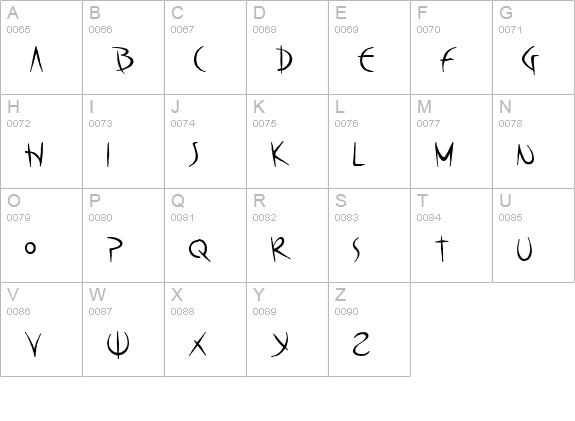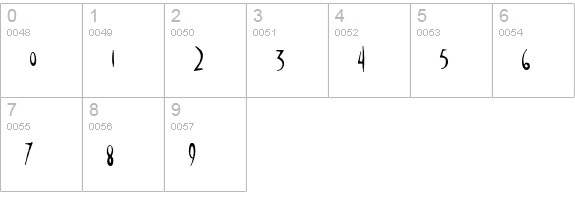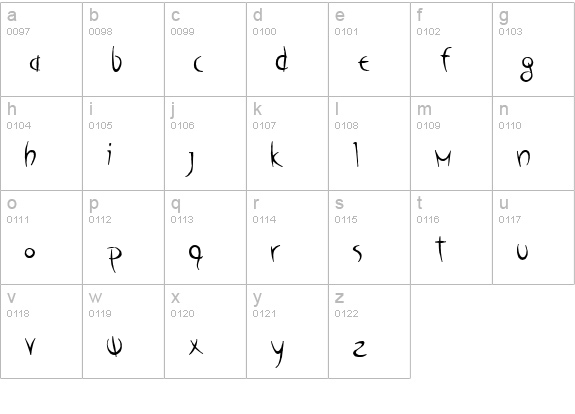
Poseidon AOE Font Details
Introducing Poseidon AOE font, a bold and powerful typeface designed to make a statement. With its strong, angular lines and commanding presence, Poseidon AOE is perfect for headings, logos, and other design projects that require a touch of authority. This versatile font exudes confidence and strength, making it ideal for projects that demand attention. And the best part? Poseidon AOE font is completely free to download at FontsMarket.com. Now you can add this striking typeface to your collection without breaking the bank. Don't miss out on the opportunity to enhance your designs with the bold and impactful style of Poseidon AOE font. Download it today and make your projects stand out from the crowd.